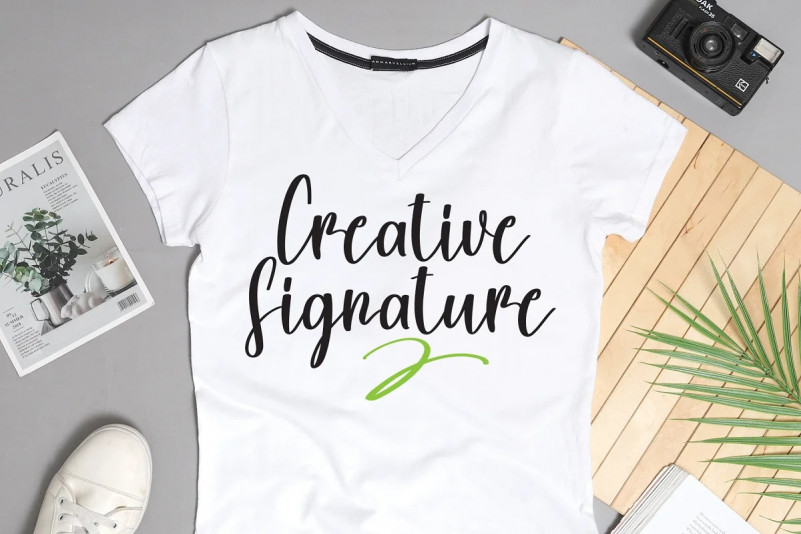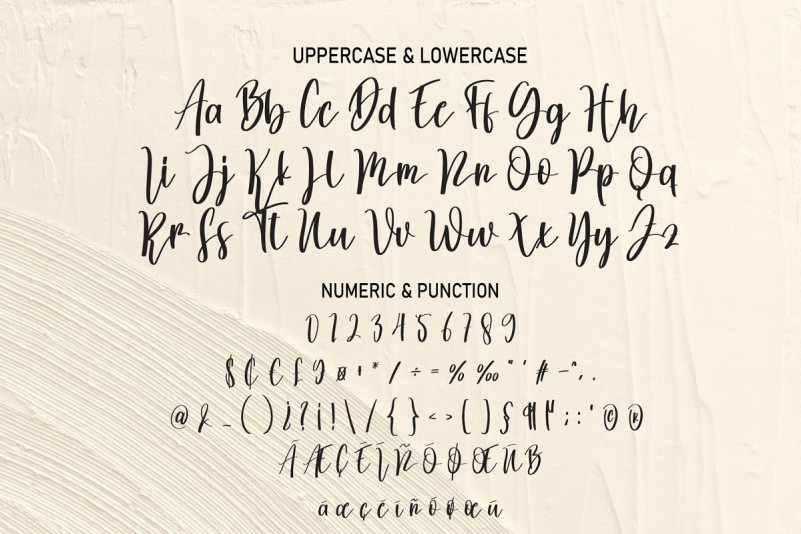
Barbara Script Font
Barbara handwritten script. This font was designed by handwriting, and it has a modern and unique forms of calligraphy, the writing style is very natural.